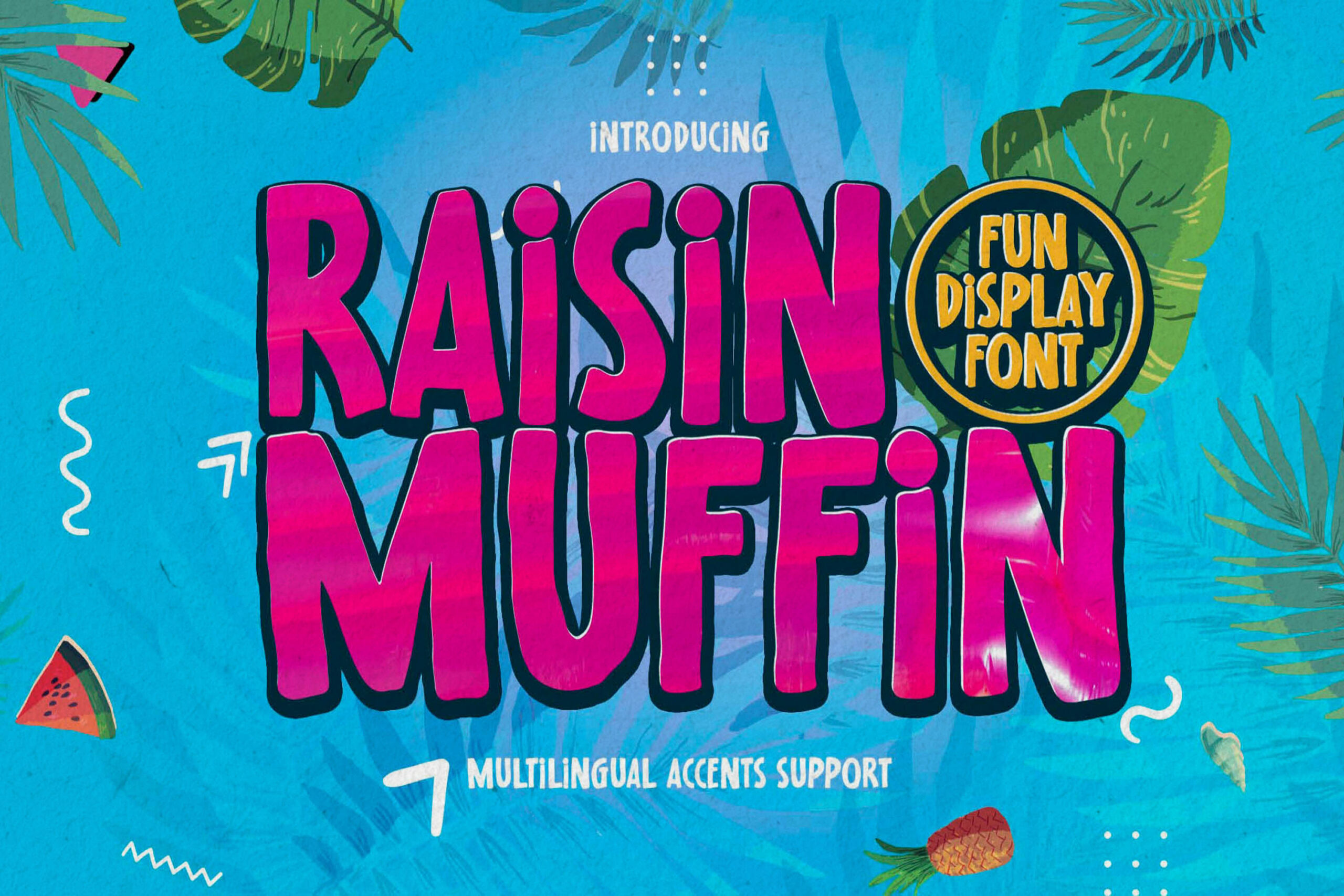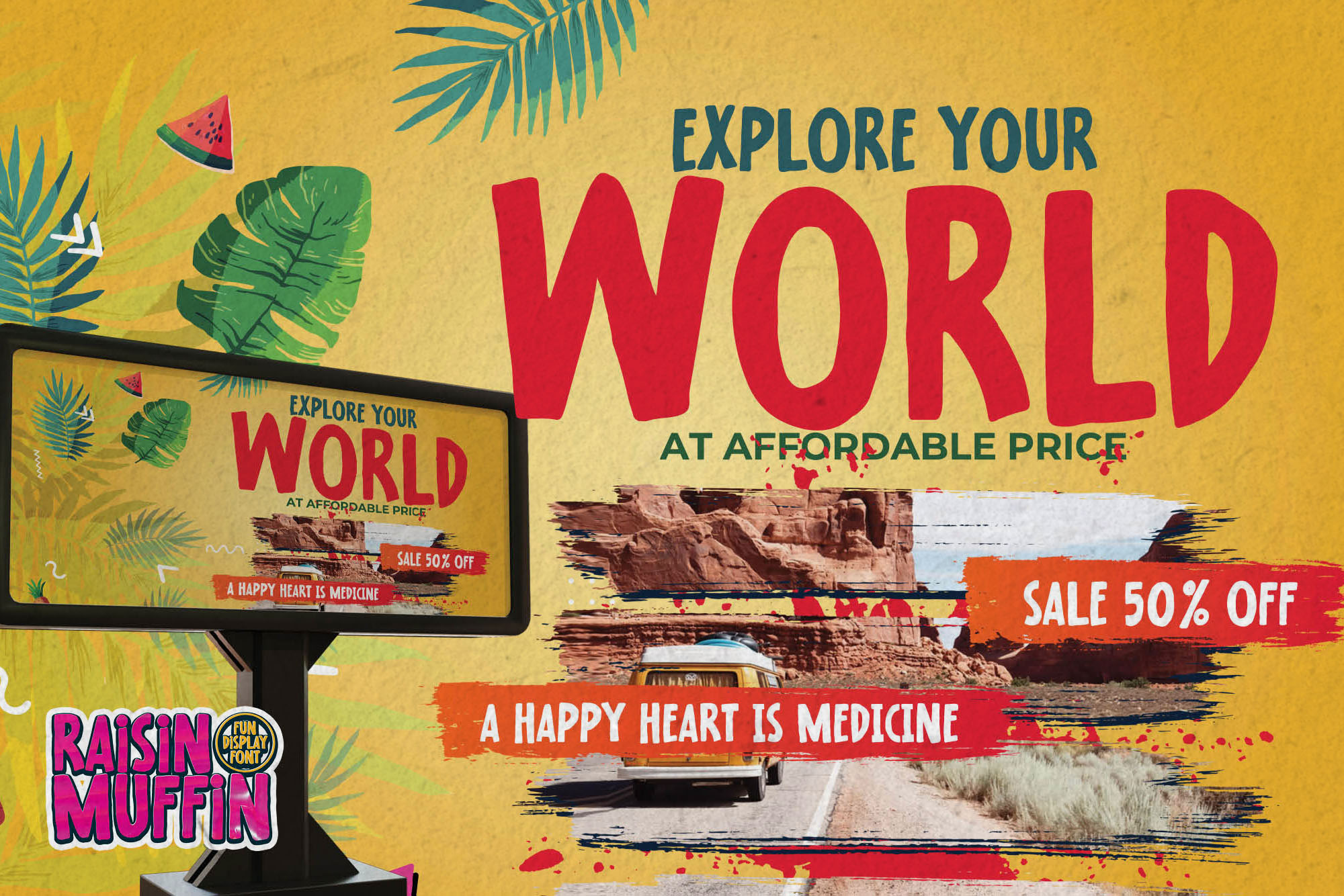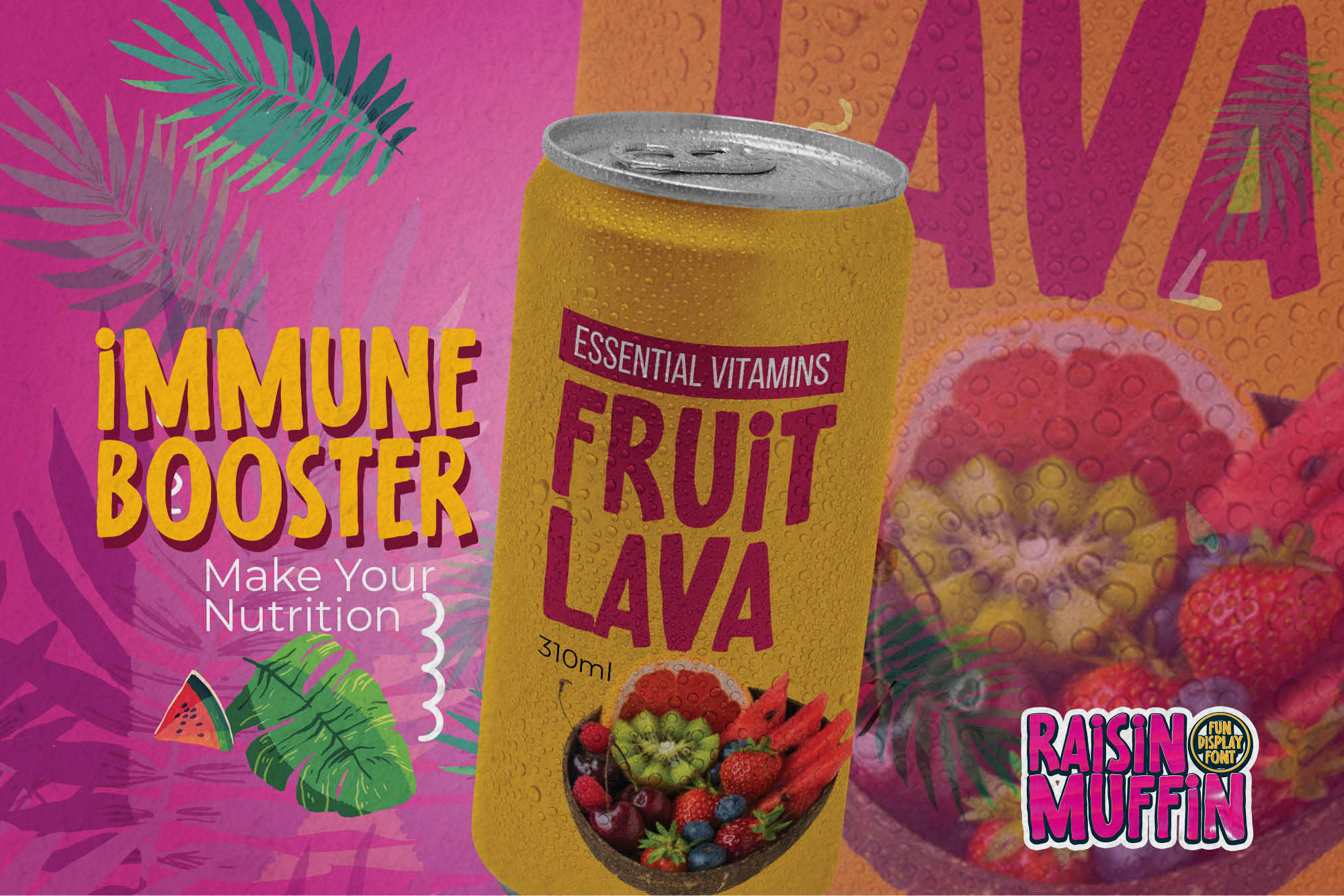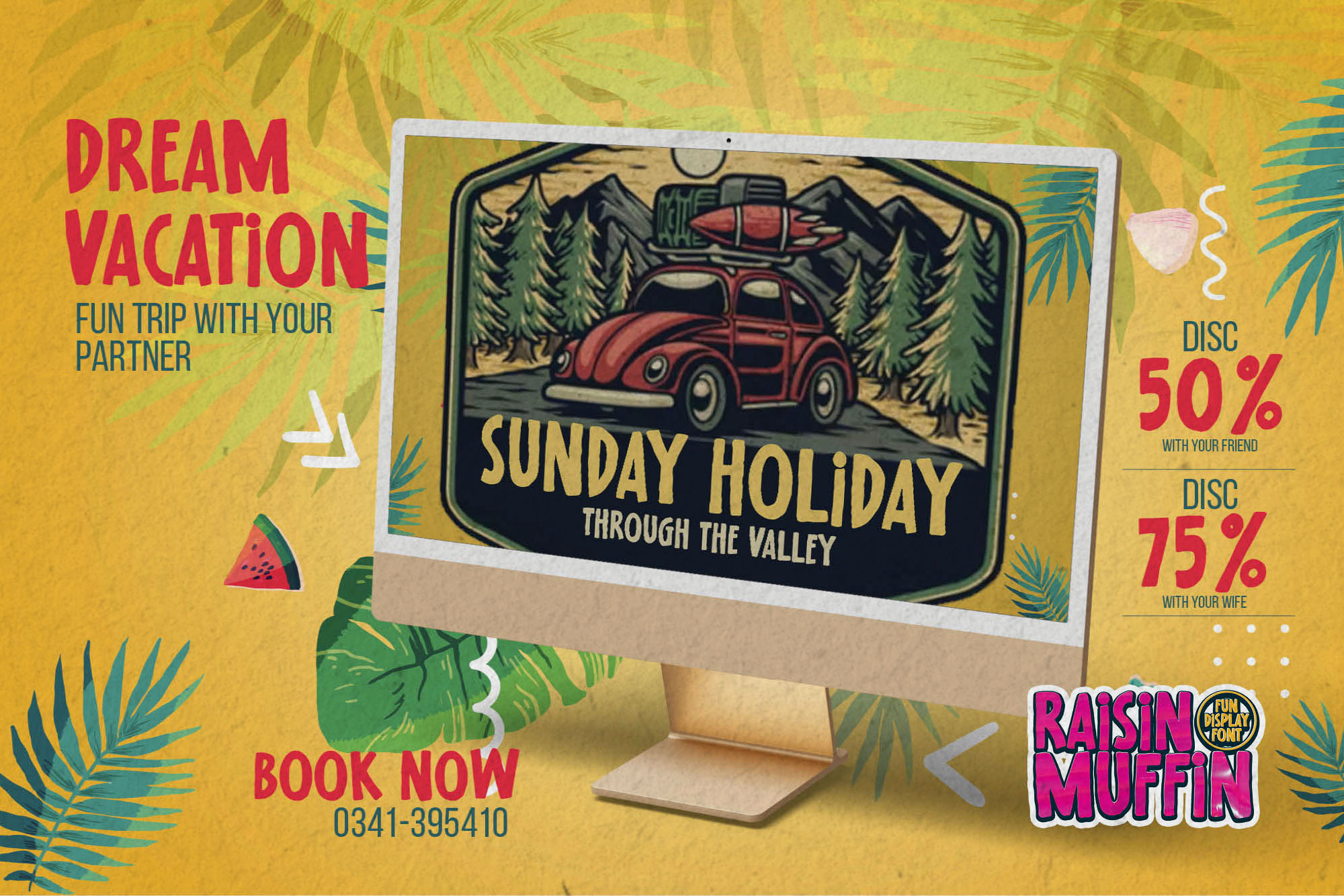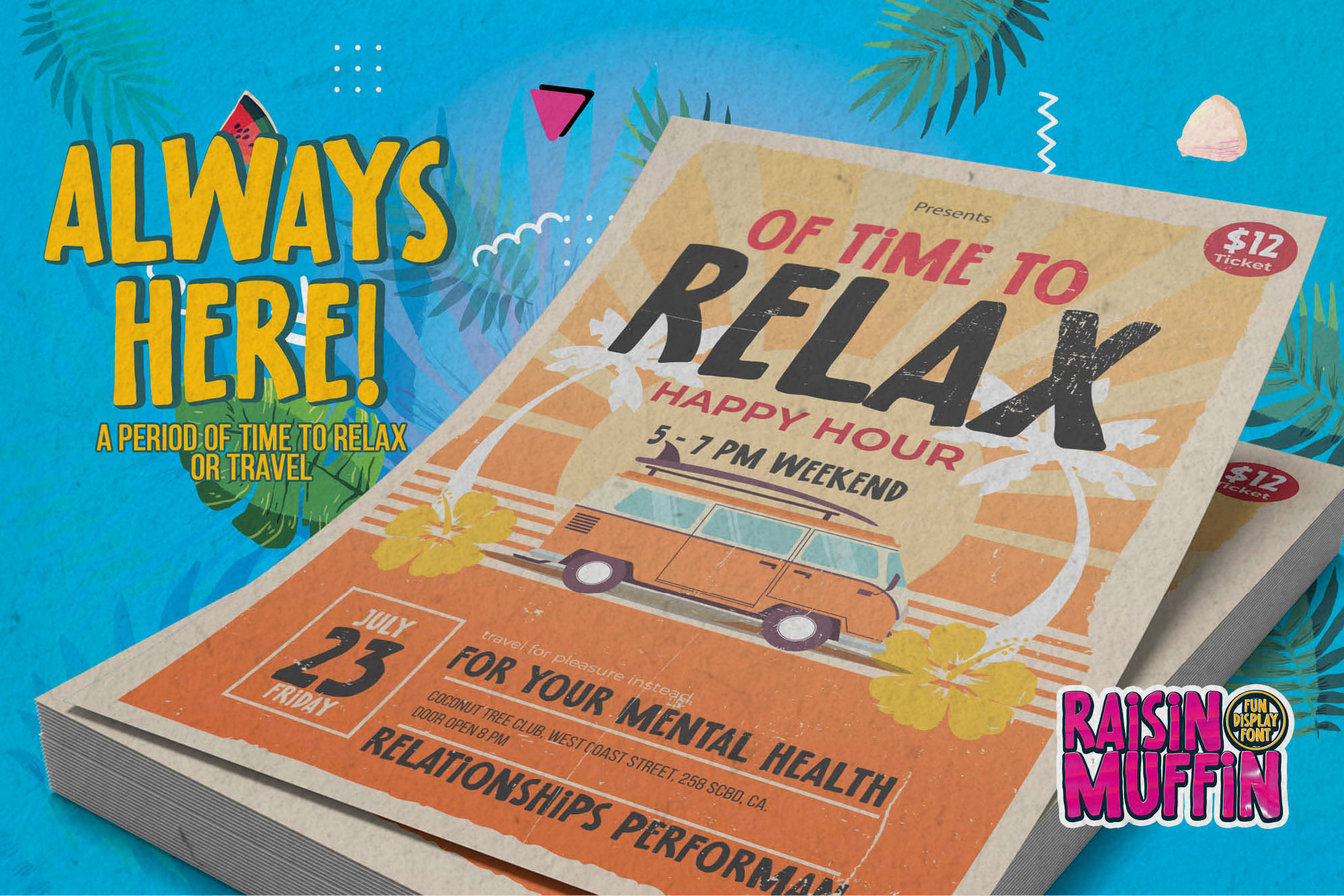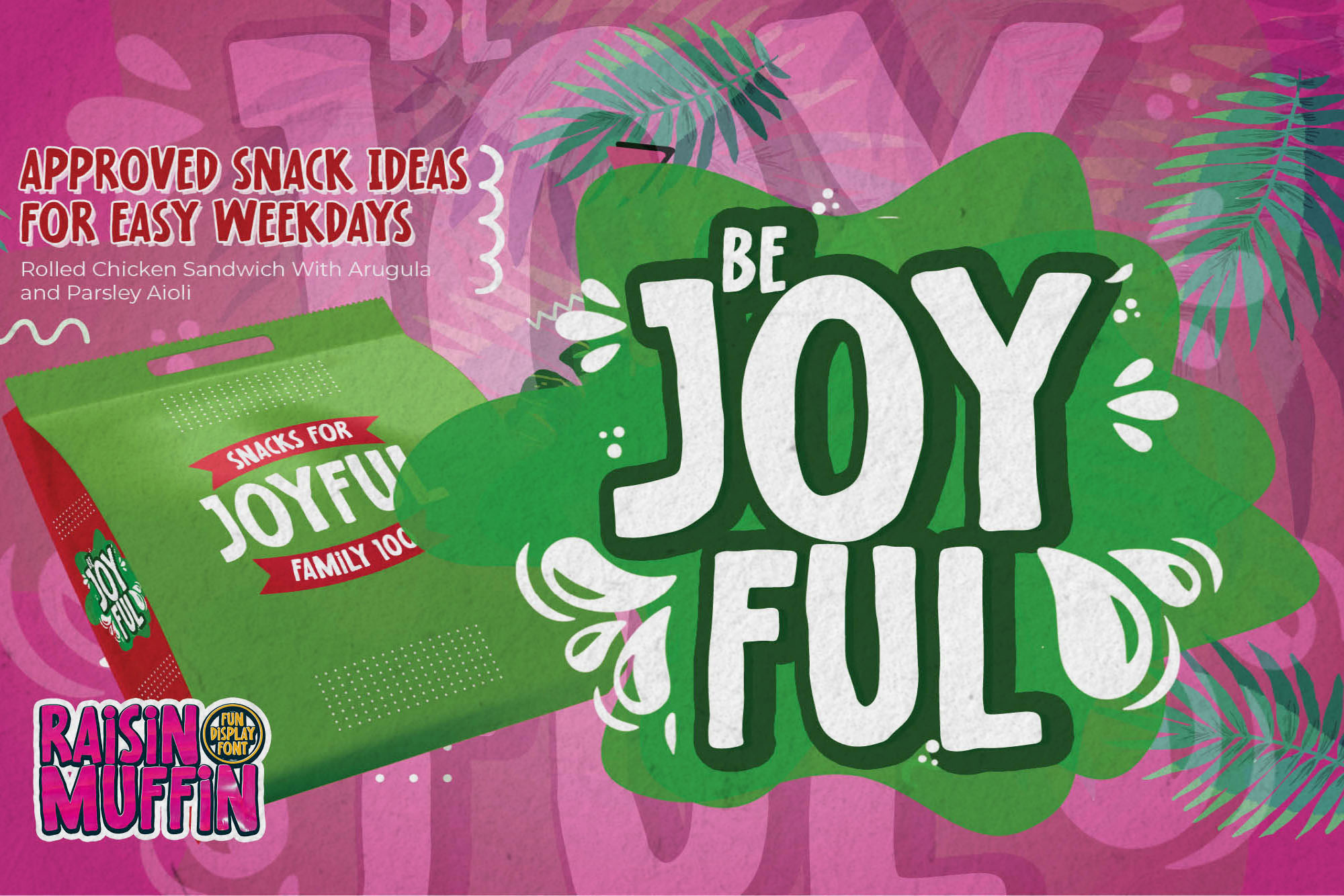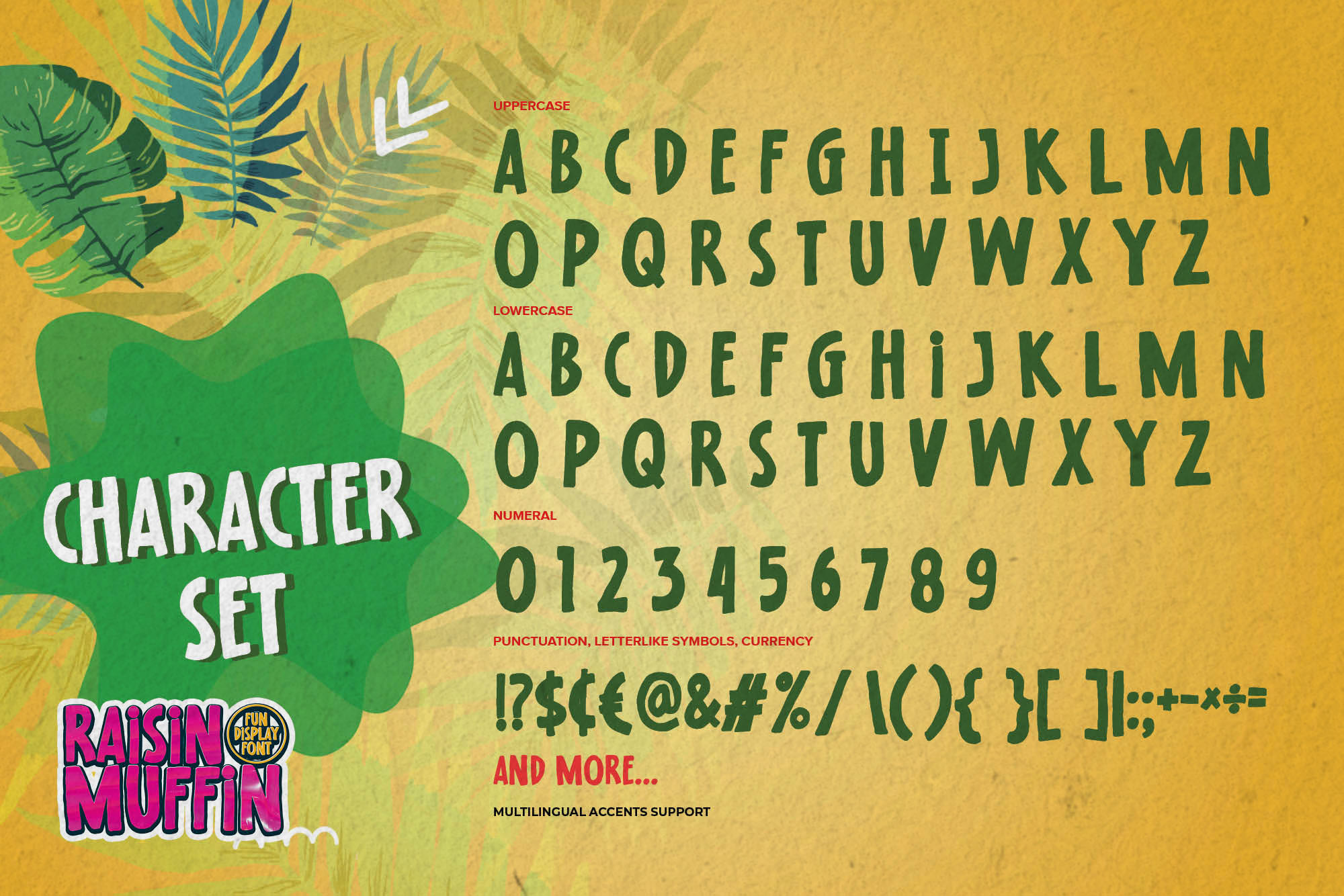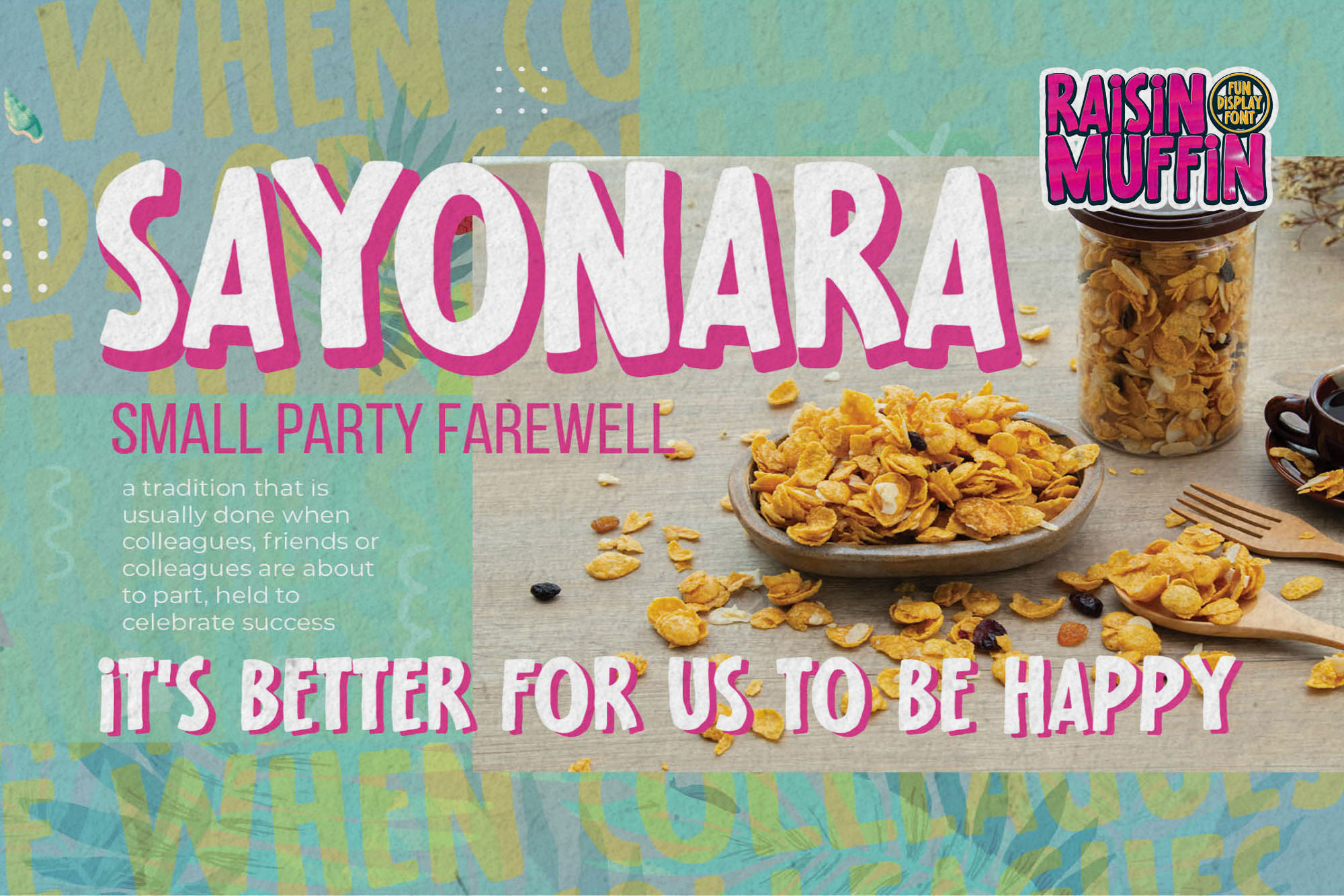
RAISIN MUFFIN – Fun Display Font, modern style and dramatic movement that is written casually and quickly.
The best for labels, poster, project designs look modern, authentic and unique. It’s perfect for labels, quotes, posters, DIY projects, branding, packaging, greeting cards, websites, photography overlays, signs, scrapbooking, tags and so much more! That is why RAISIN MUFFIN has a textured, and unique characteristic more natural look.